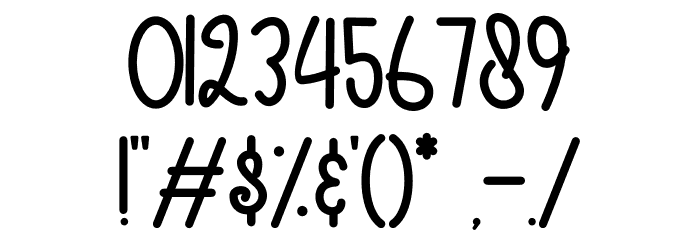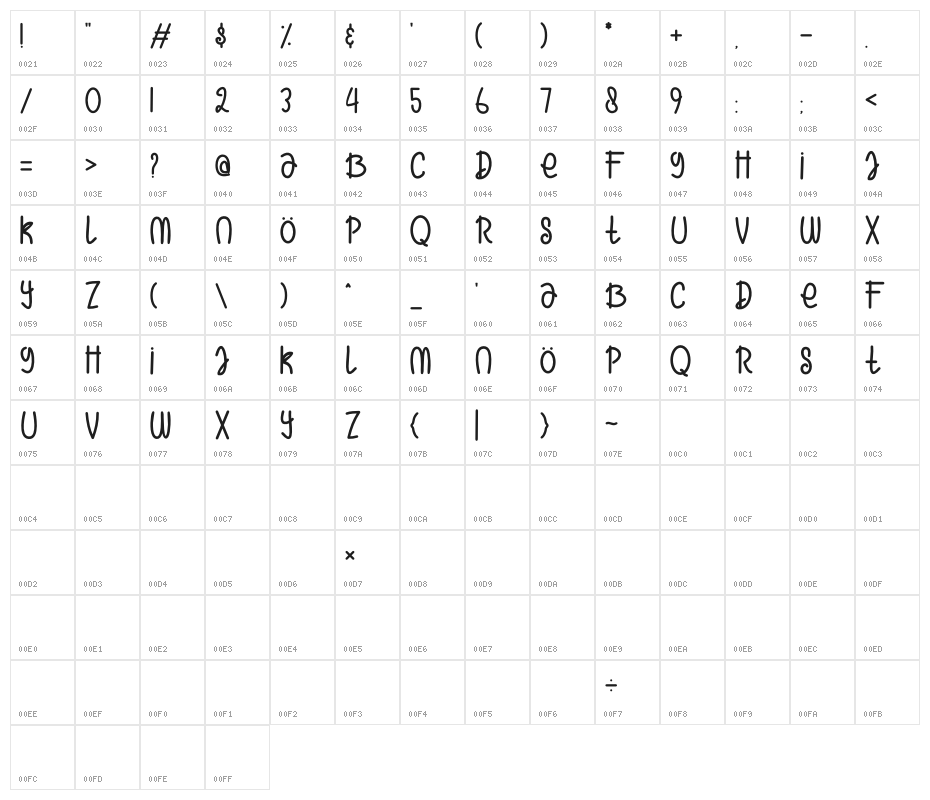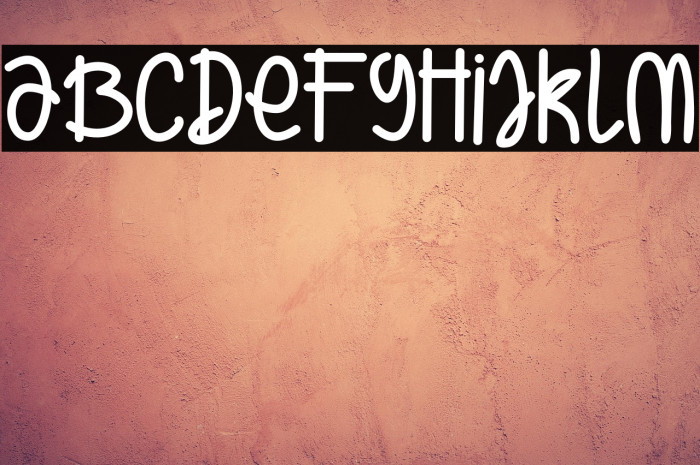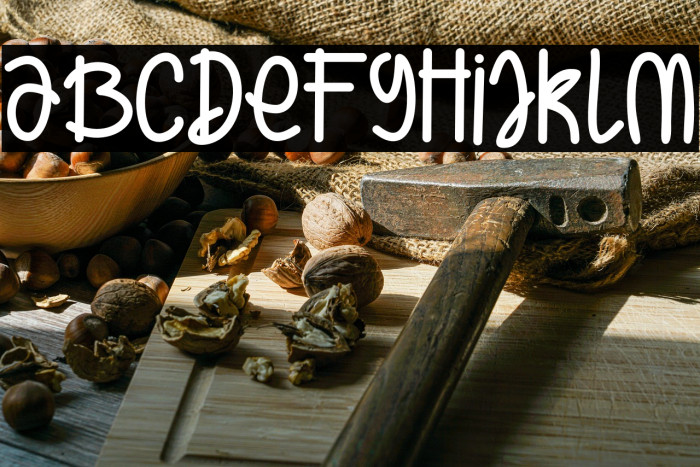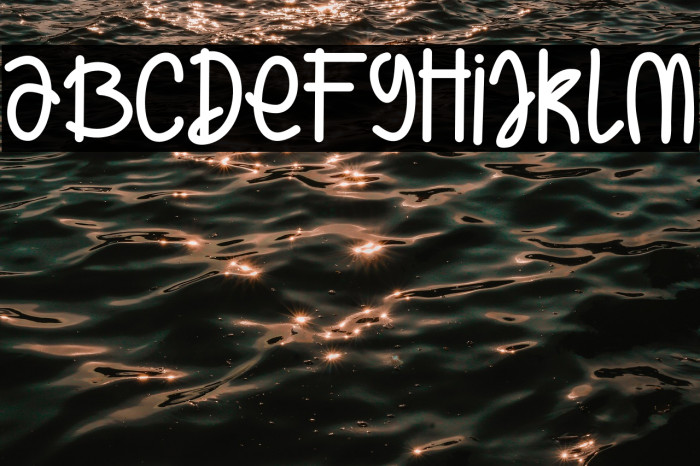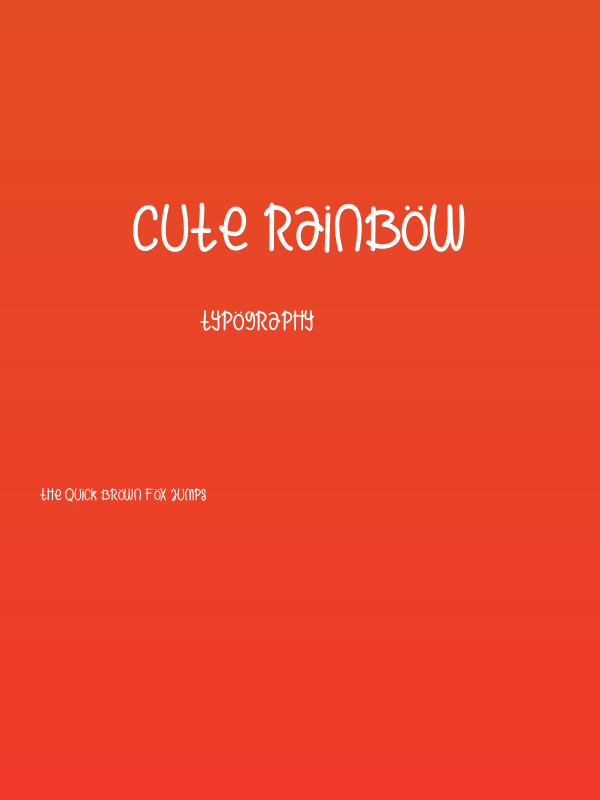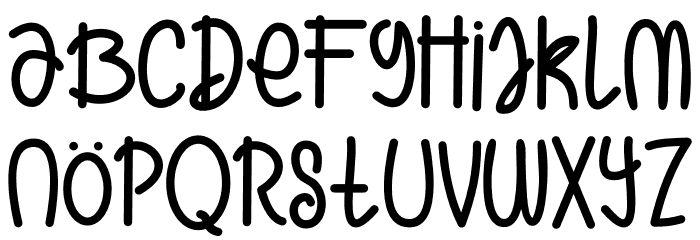
Cute Rainbow Font
Cute Rainbow Description
This playful and whimsical font features rounded, bubbly characters that exude a sense of fun and creativity. The letters are uniformly thick, with a consistent stroke width that gives them a bold appearance. The font includes both uppercase and lowercase letters, as well as numbers and a variety of special characters. Its rounded edges and smooth curves make it approachable and friendly, ideal for projects that aim to convey a lighthearted and cheerful tone. The characters are evenly spaced, ensuring readability while maintaining a playful aesthetic.
Cute Rainbow